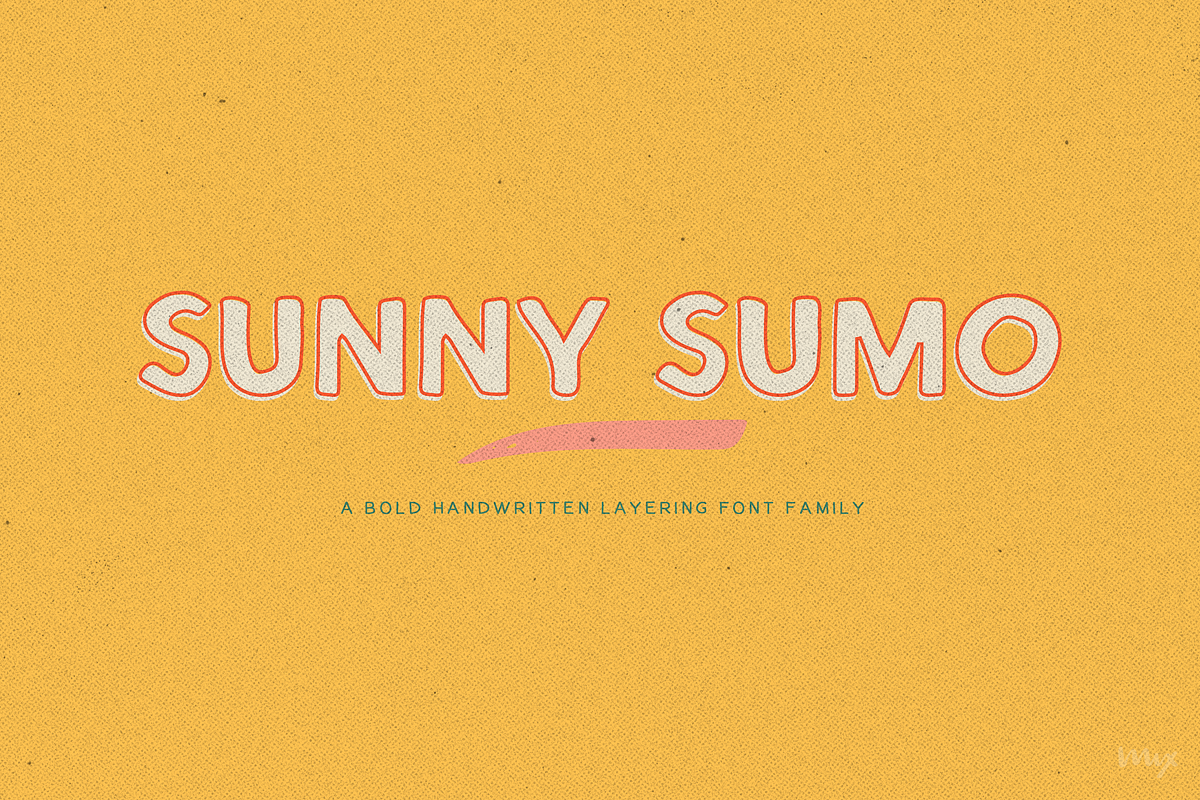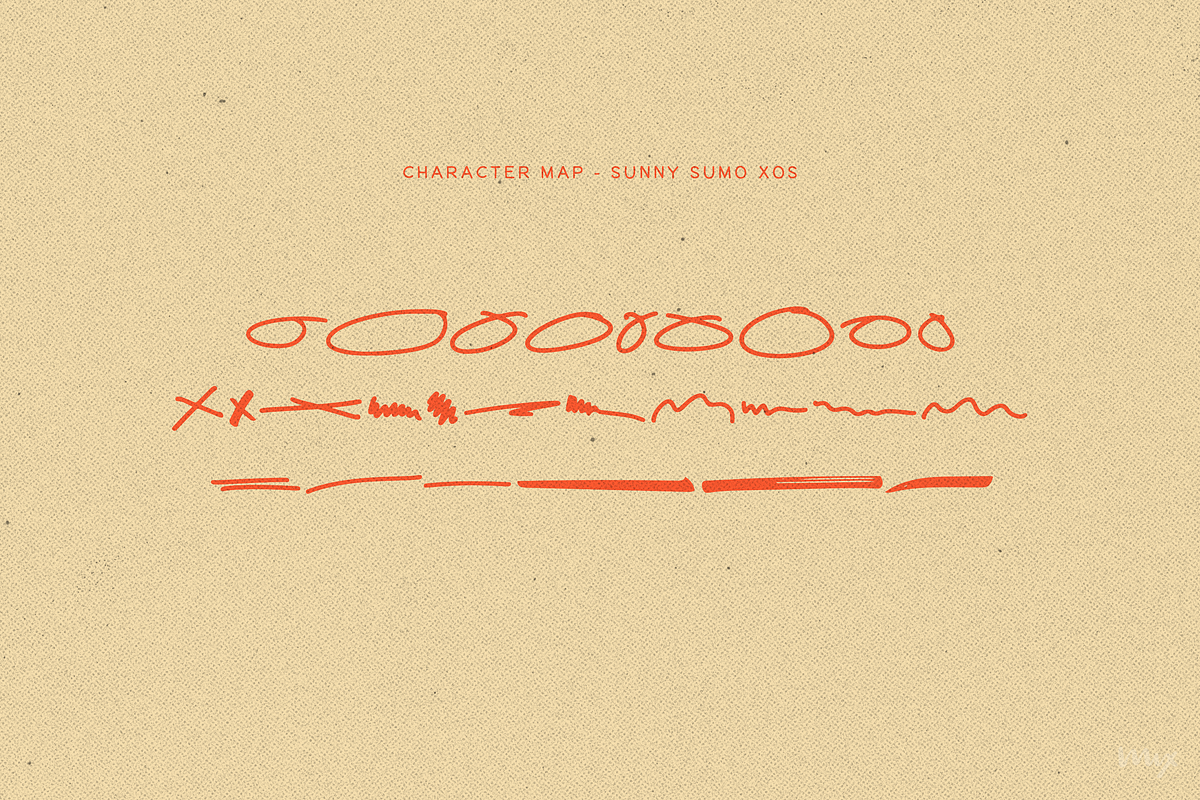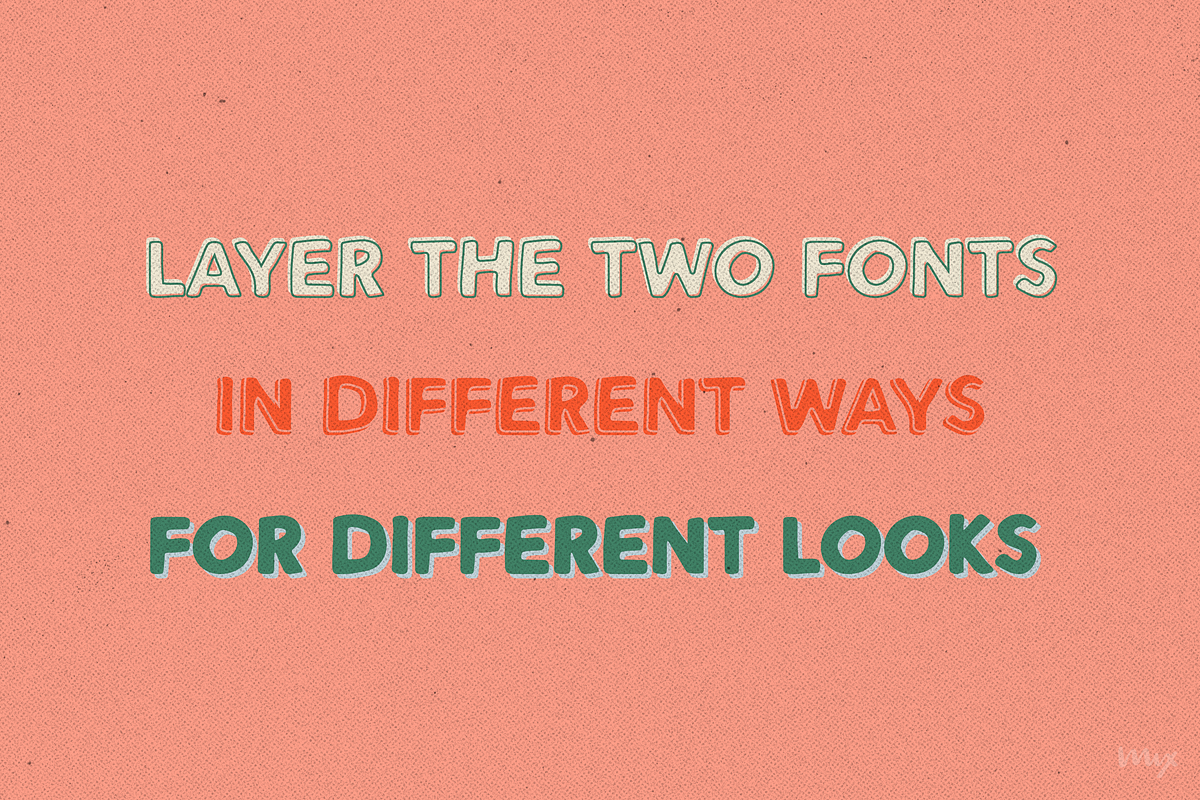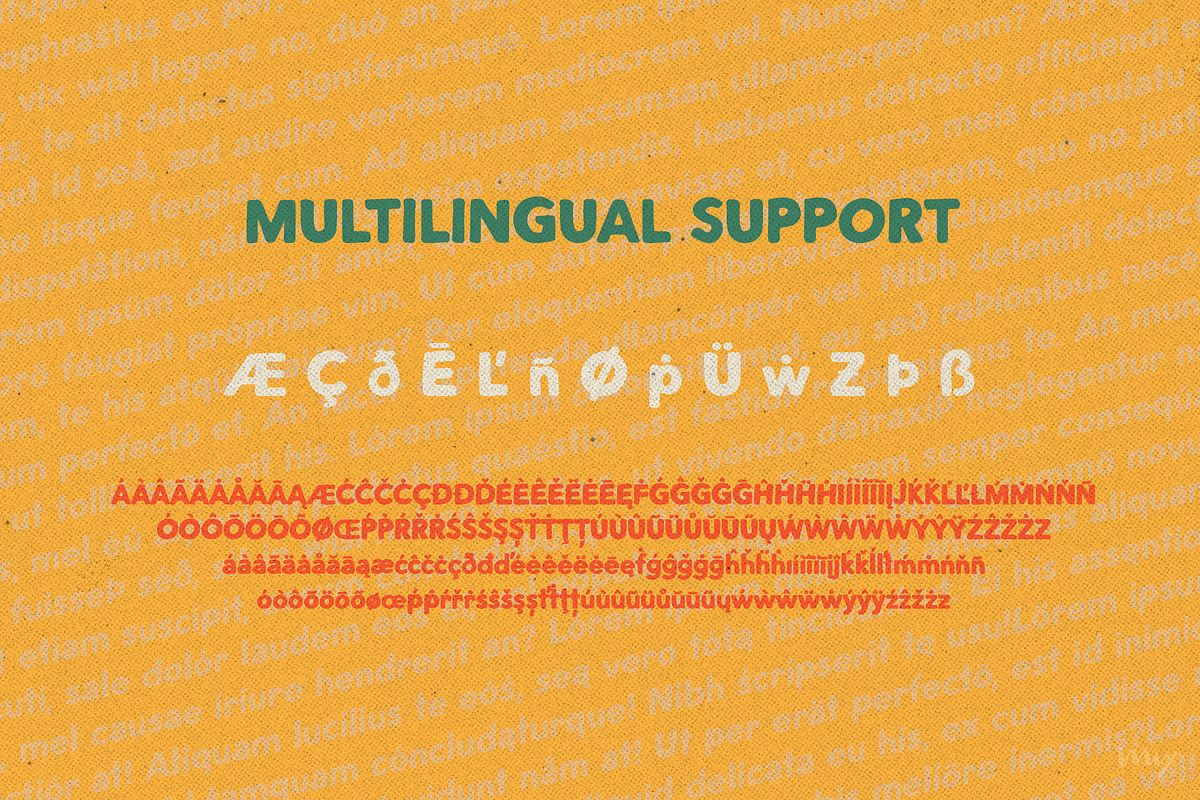
Sunny Sumo — A Layering Sans Serif
Meet the MIX SUNNY SUMO font family, the perfect blend of playful and bold that’s sure to make your designs stand out. This three-piece font family includes SUNNY SUMO, SUNNY SUMO LINE, and SUNNY SUMO XOs, each with their own unique style.
SUNNY SUMO and SUNNY SUMO LINE are layering fonts, which means you can use them separately or stack them to create dynamic designs. And for those fun finishing touches, SUNNY SUMO XOs offers a variety of doodles including X marks, circles, erase marks, and cross-offs that can be used alongside any graphic work.
Designed as a bold handwritten sans serif, SUNNY SUMO is ideal for display fonts and headlines that require attention. This versatile font can be used by designers for logos, book covers, greeting cards, posters, packaging, and so much more.
As a multilingual font, SUNNY SUMO supports multiple languages, including all the characters, glyphs, and accent marks needed for specific languages.
With SUNNY SUMO, you can strike the perfect balance between relatable and professional, making it a great choice for anyone seeking a playful, bold, and fun layering font.